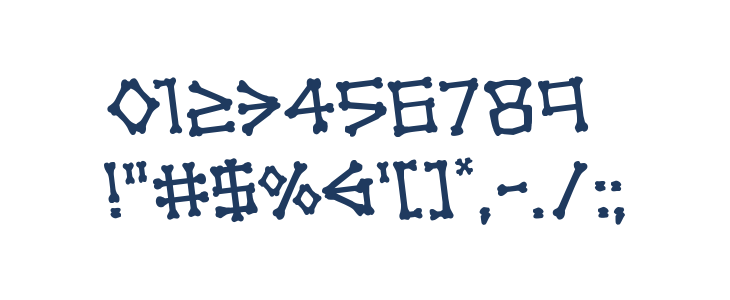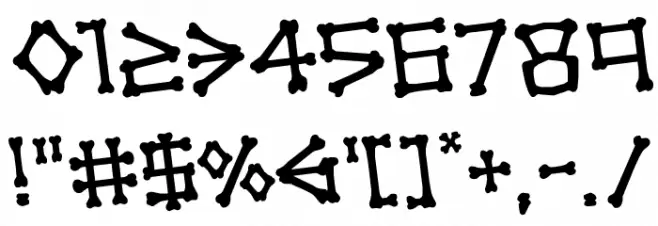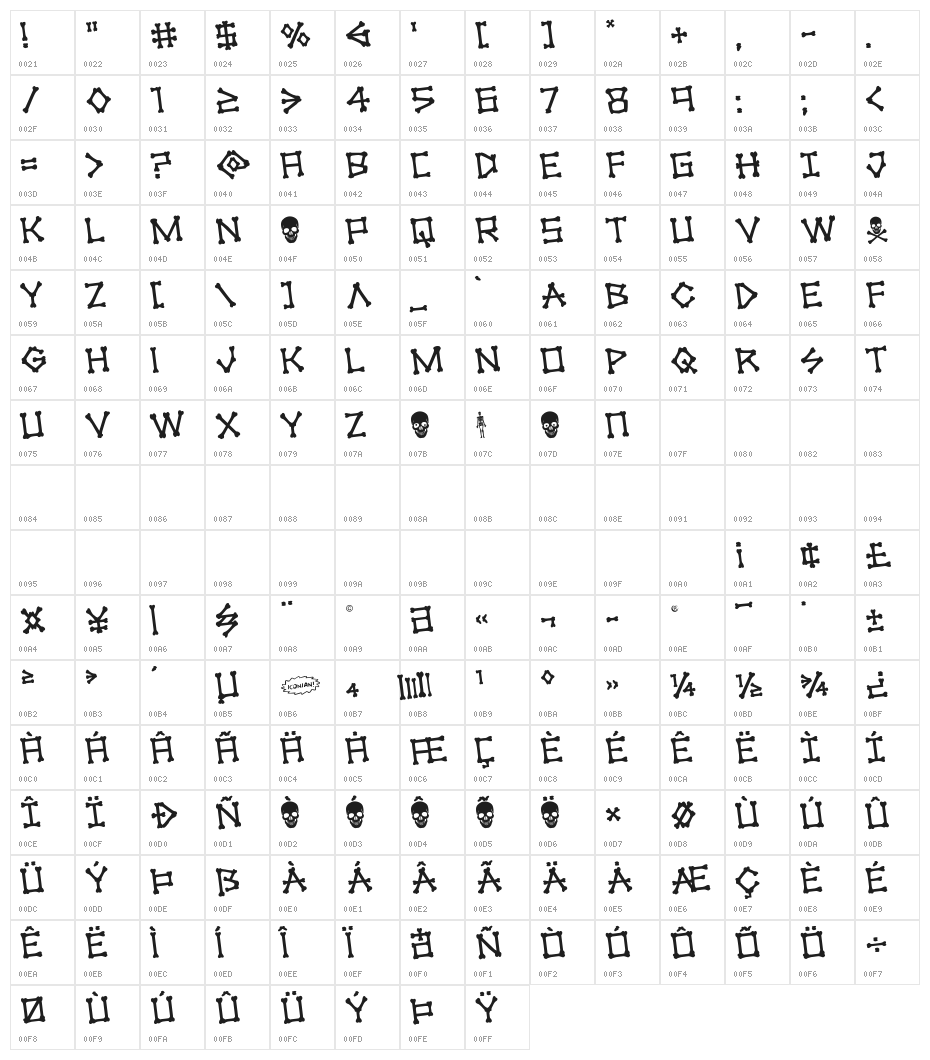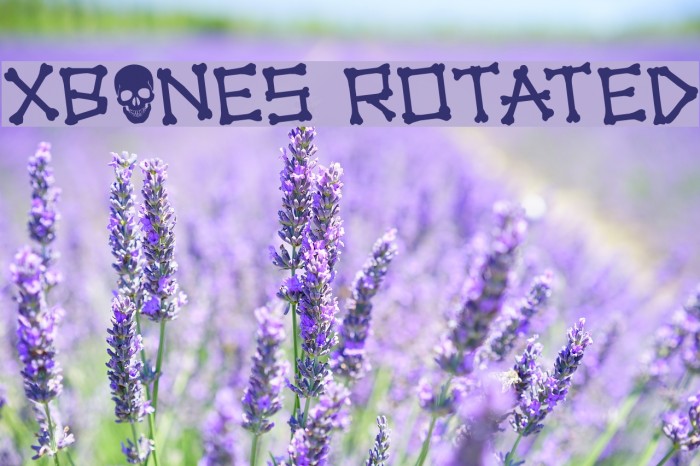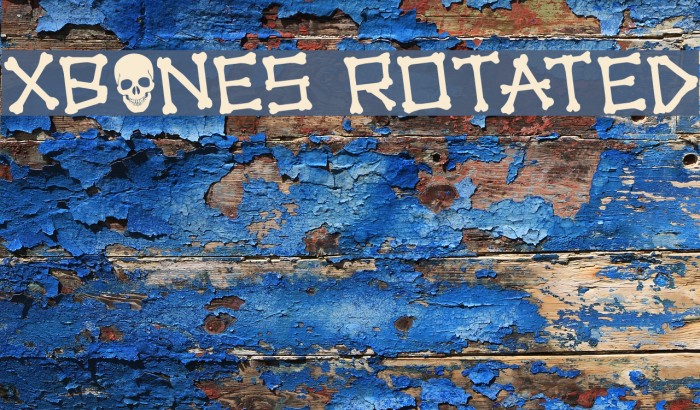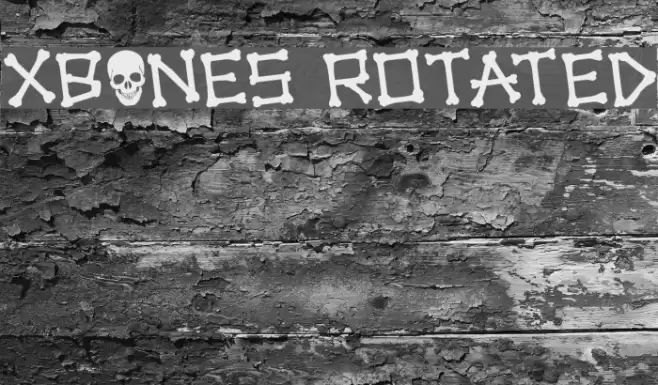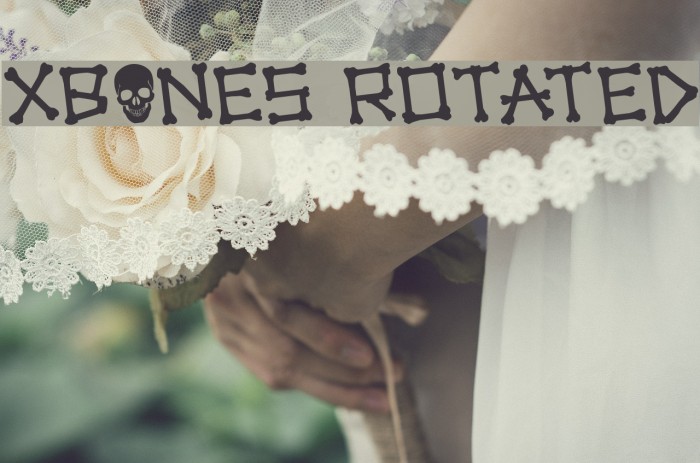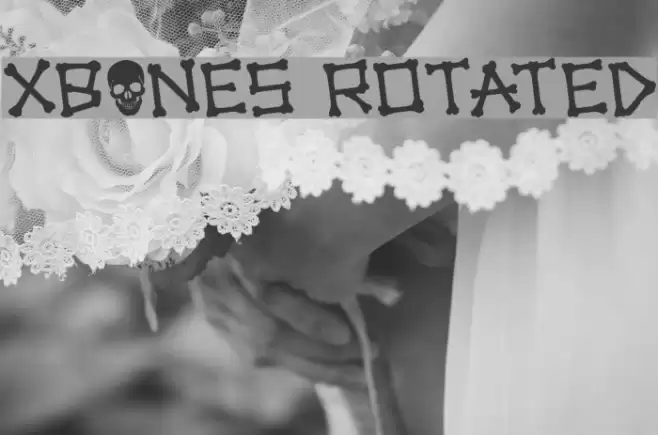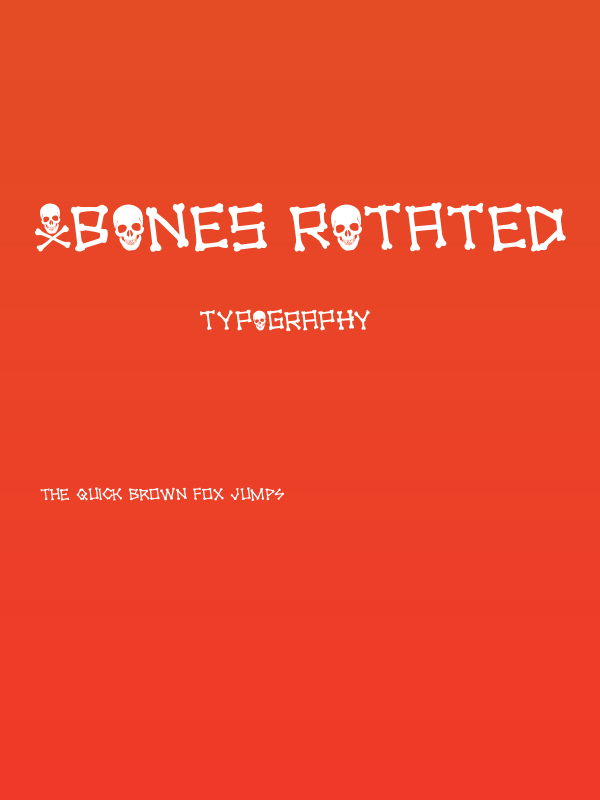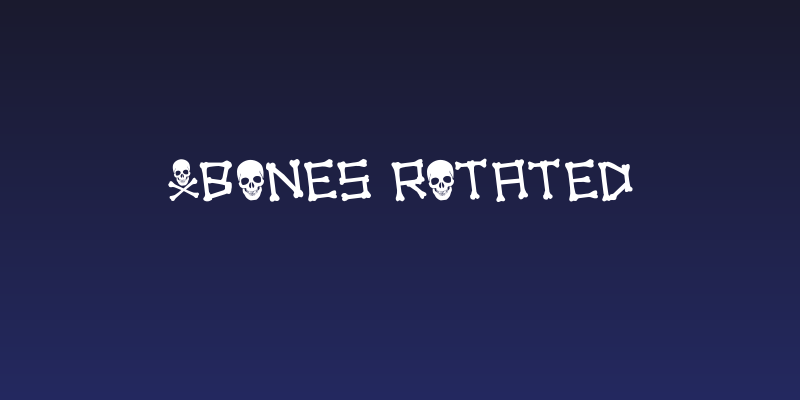
xBONES Rotated Font
xBONES Rotated Description
This font features a unique and playful design, with each character resembling a bone structure. The letters are crafted to mimic the appearance of bones, giving it a quirky and slightly macabre aesthetic. The uppercase and lowercase letters maintain a consistent style, with the uppercase letters being slightly more pronounced. Numbers and special characters follow the same bone-like theme, adding to the cohesive look. The font includes a skull symbol, enhancing its thematic appeal. This design is ideal for projects that require a spooky or Halloween-themed touch, as it captures the essence of a skeletal motif.